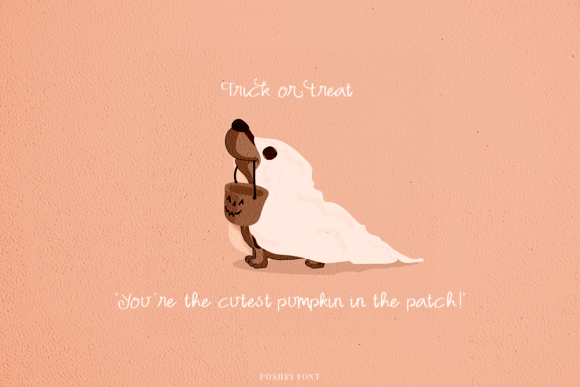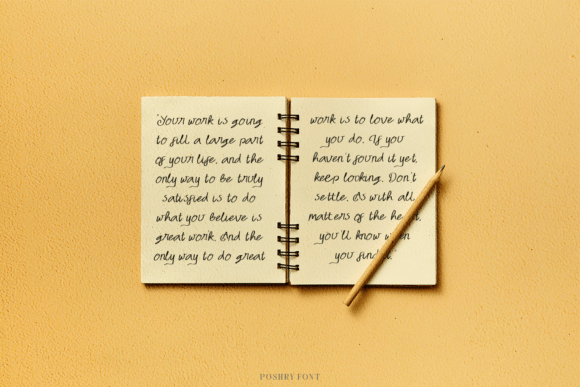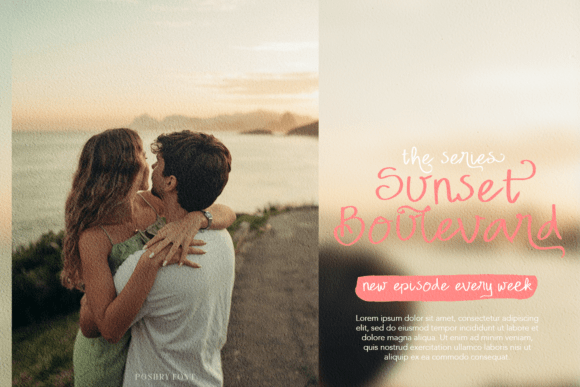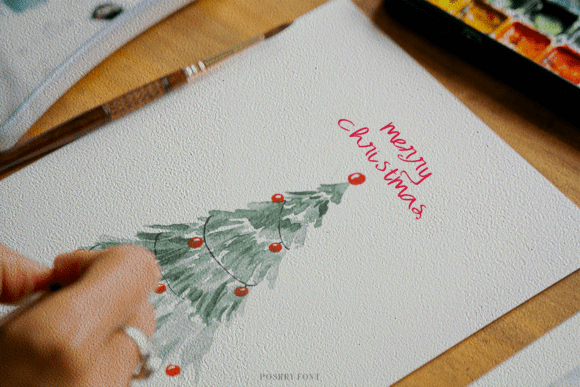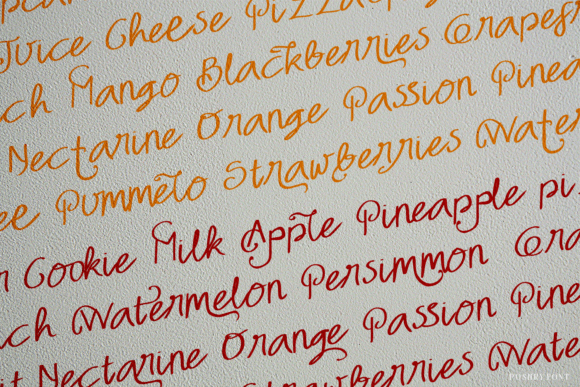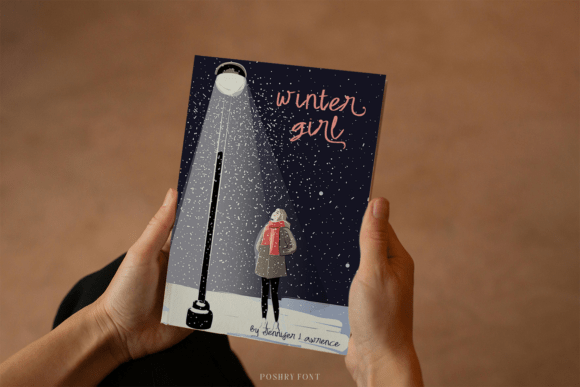
Introduction to Poshry Regular Font
Poshry is a realistic handwritten script that delivers an easy, human touch to modern layouts.
Smooth pressure shifts, rounded terminals, and a relaxed, slightly bouncing baseline create convincing ink-on-paper flow Built-in ligatures and stylistic alternates vary repeated letters and form natural joins, so titles and wordmarks read like true handwriting.